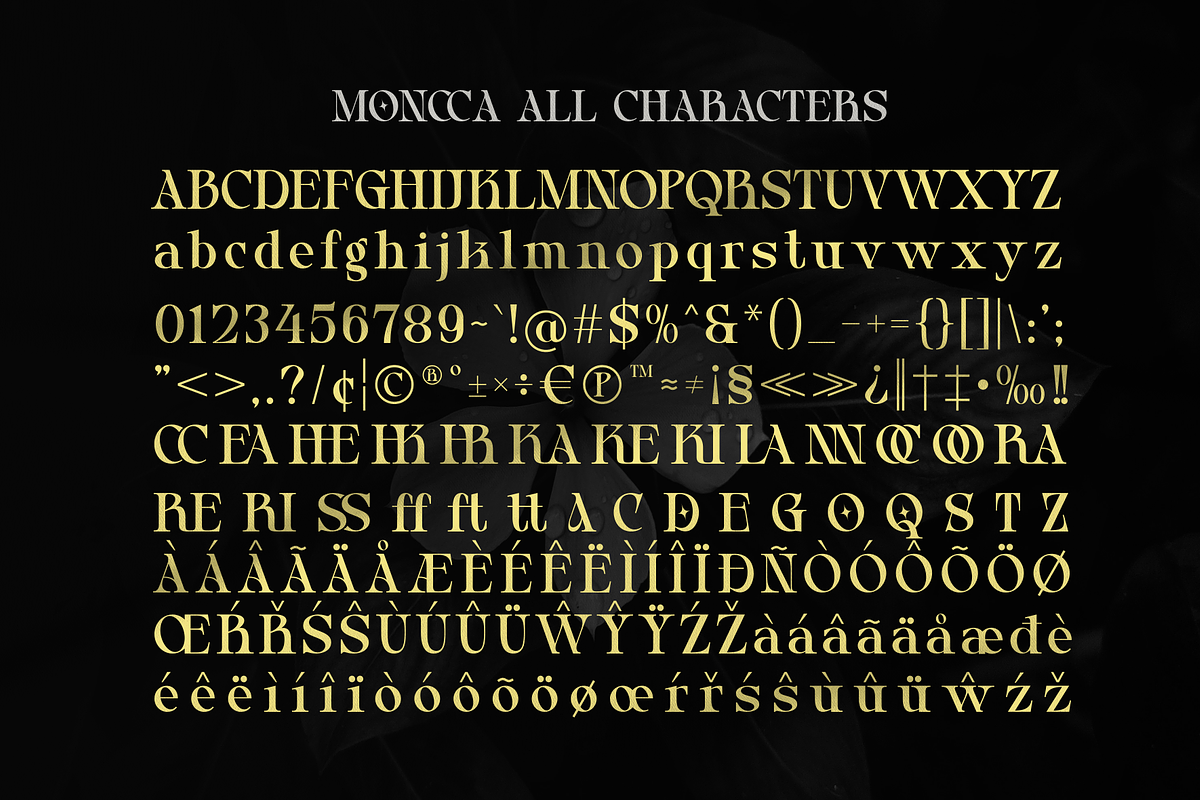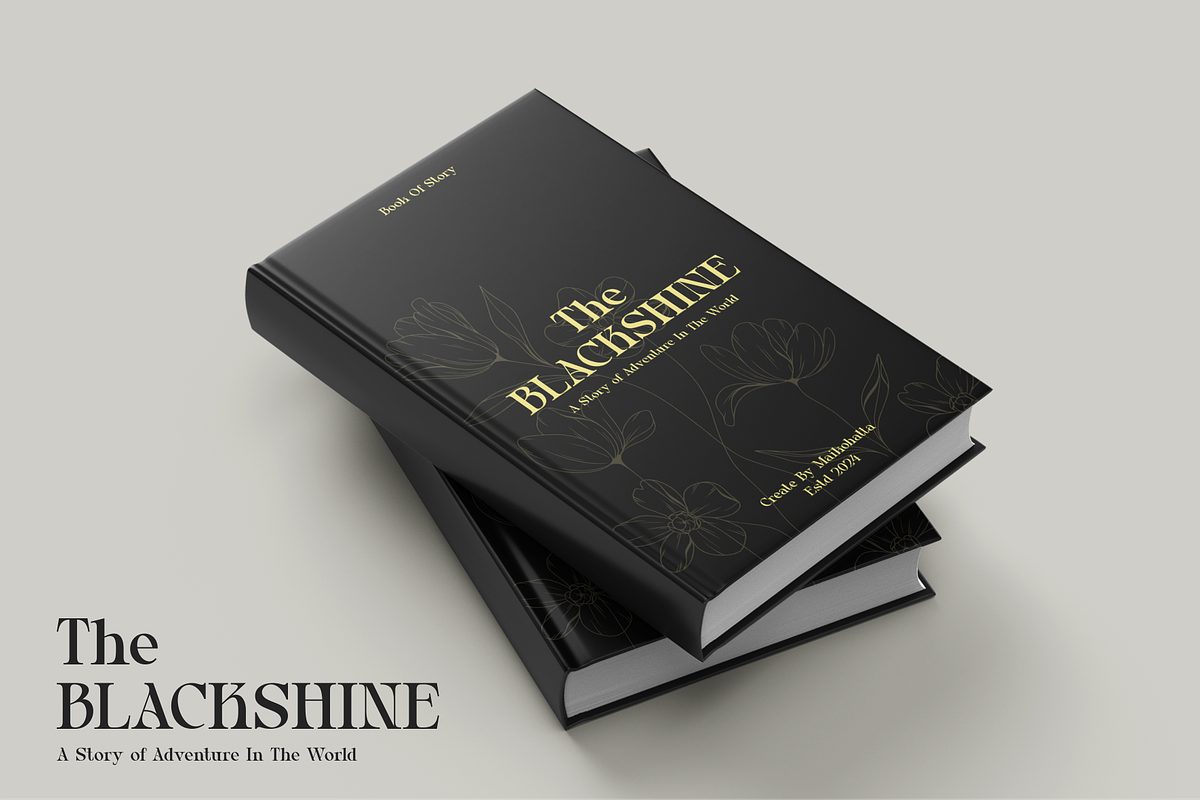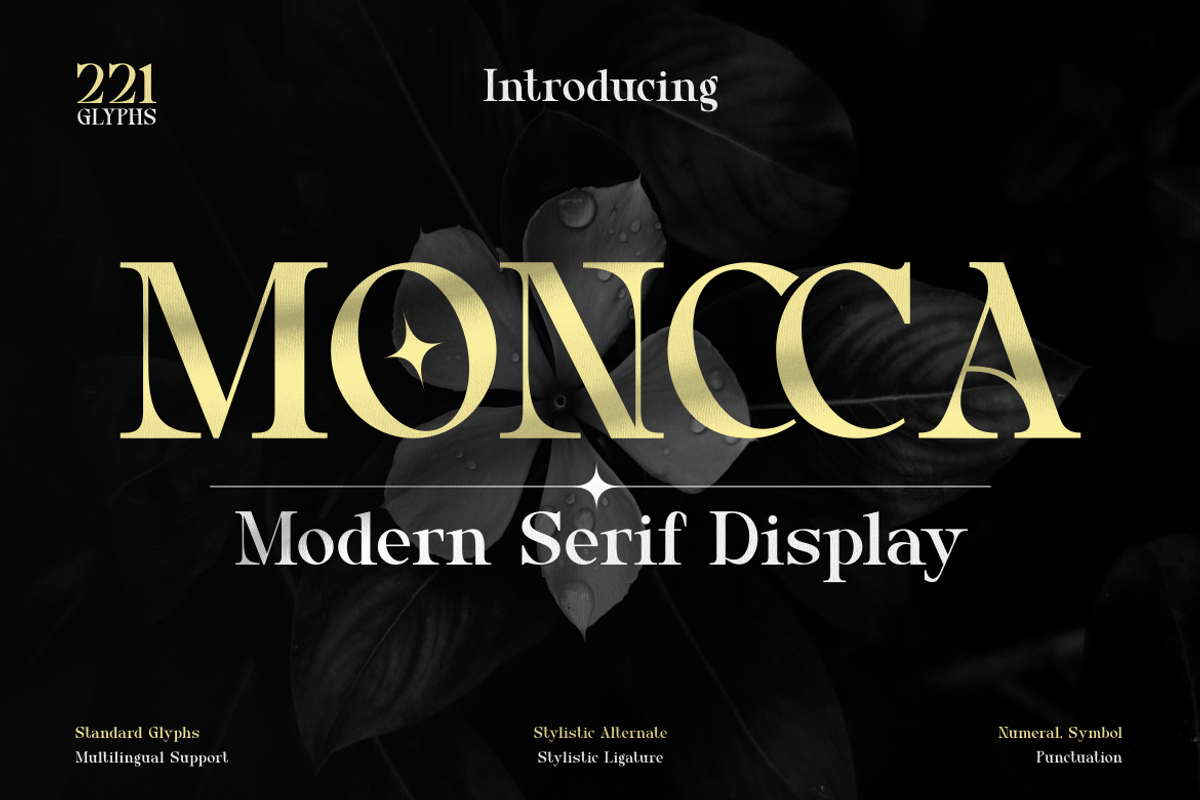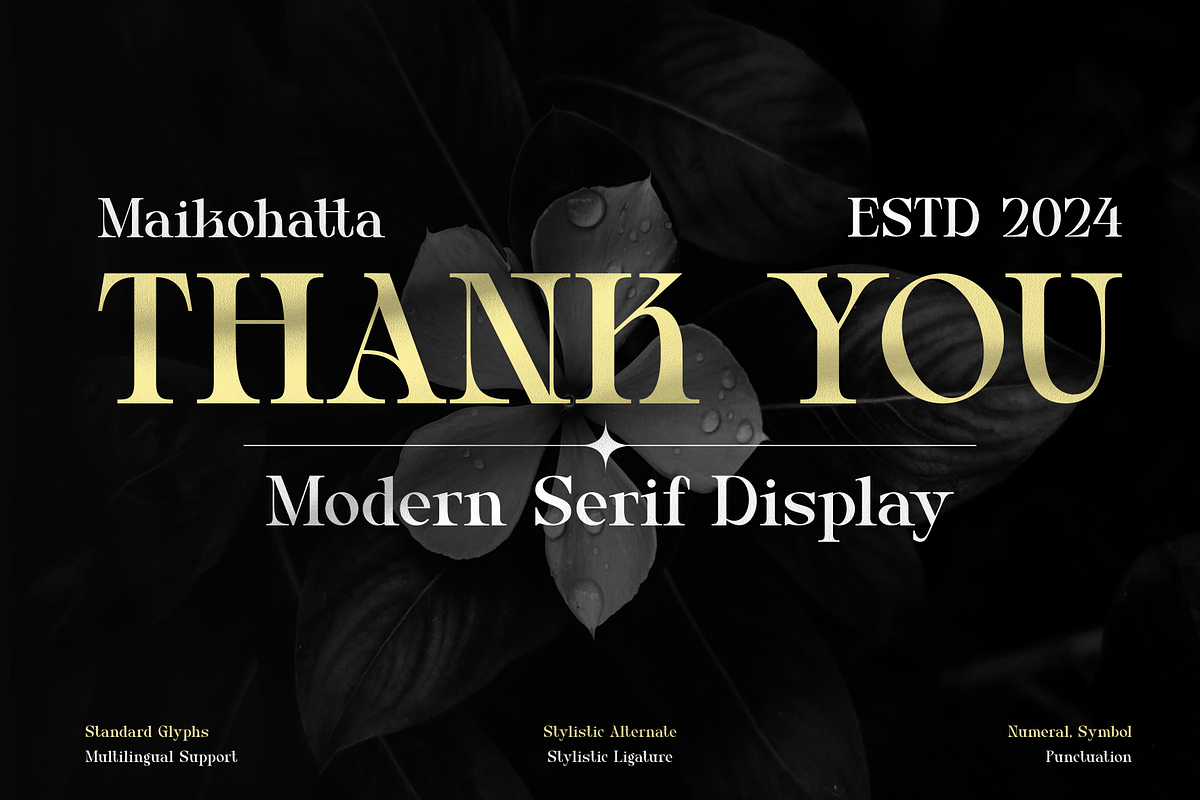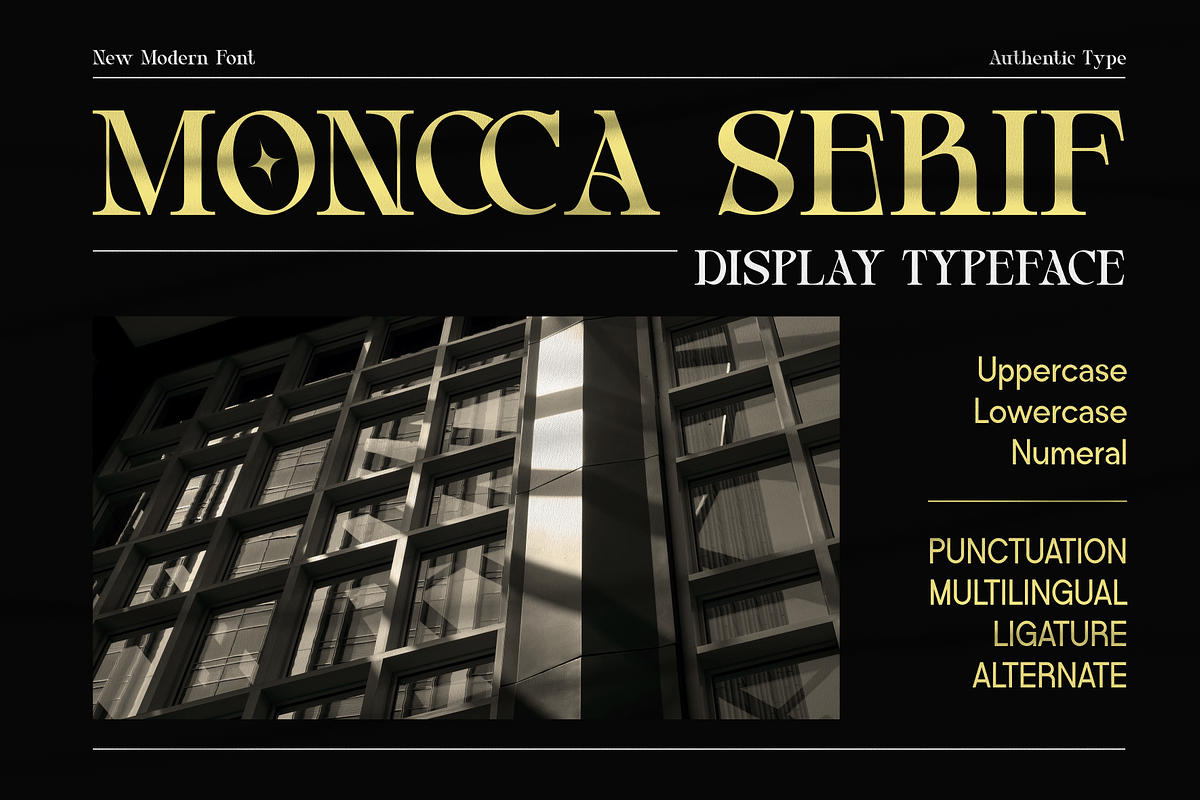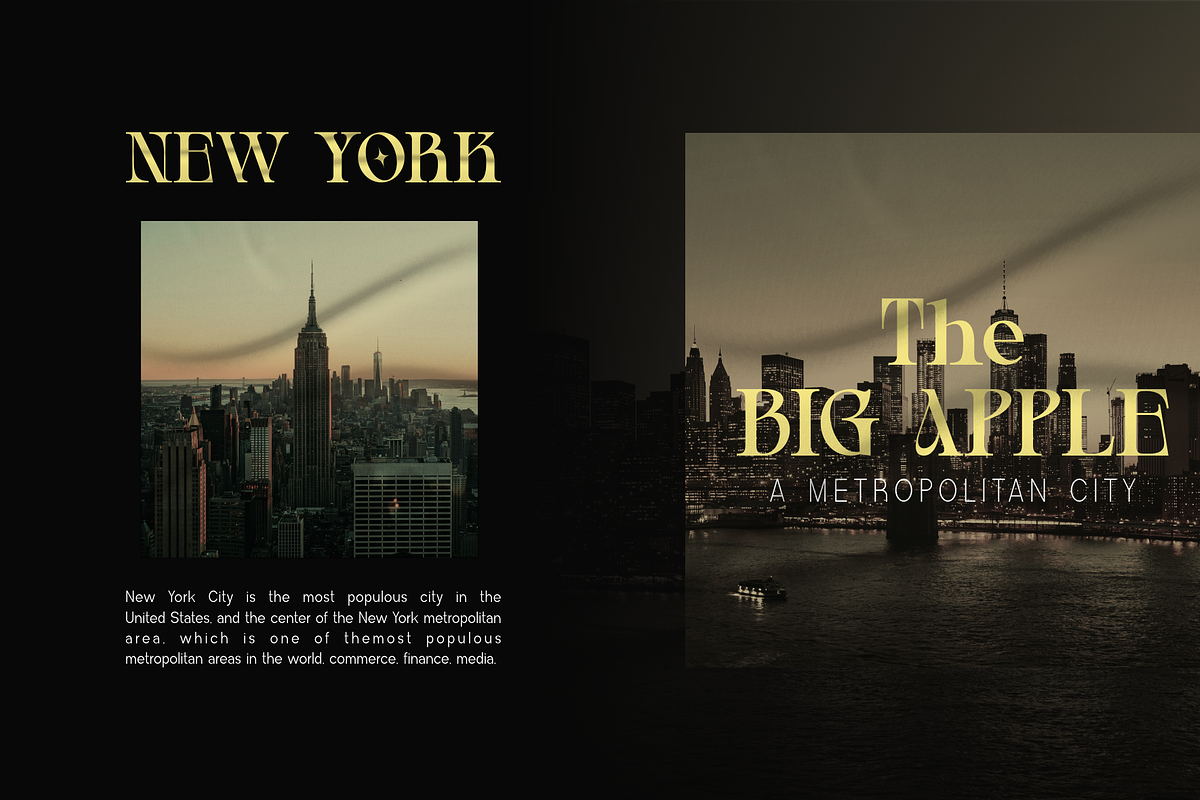
Moncca - Modern Serif Display
Introducing our new product Moncca - Modern Serif Display
This font features a balanced proportion of stroke thickness and fineness, creating attractive and easy-to-read visuals. This modern serif style is often characterized by a bold distinction between thick and thin lines, providing a touch that is understated but still stands out.